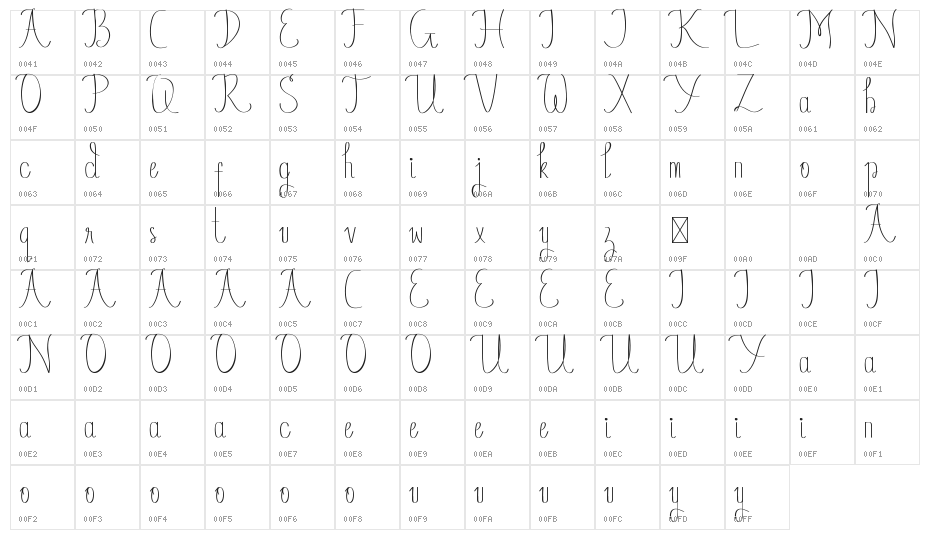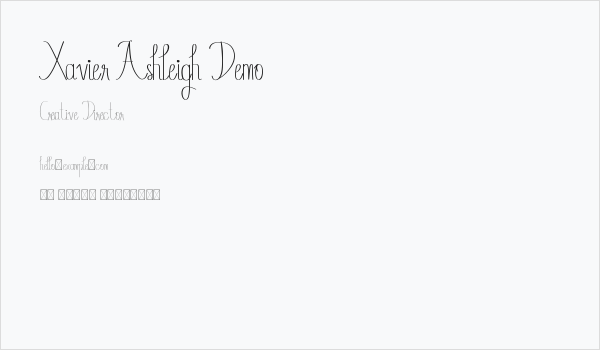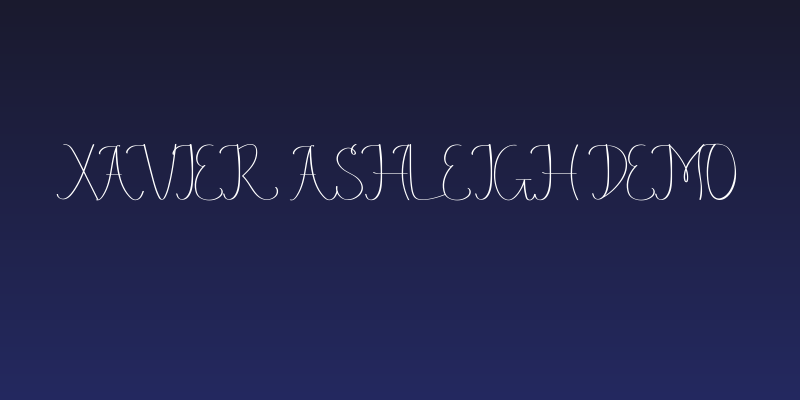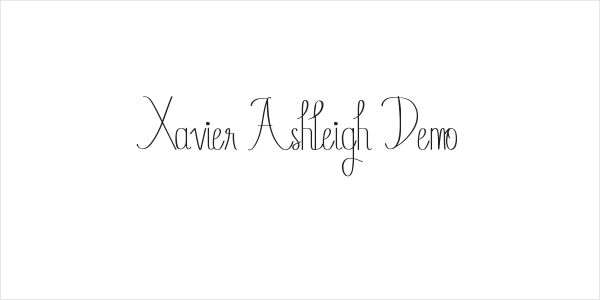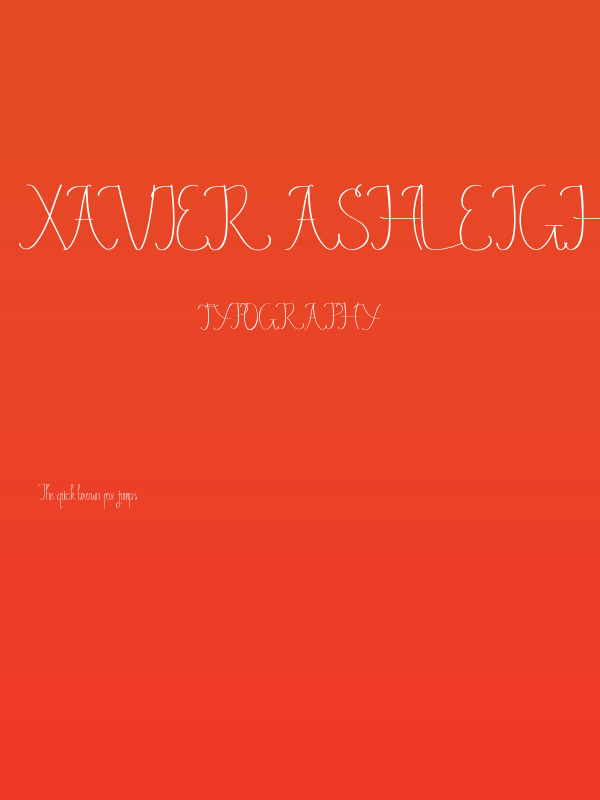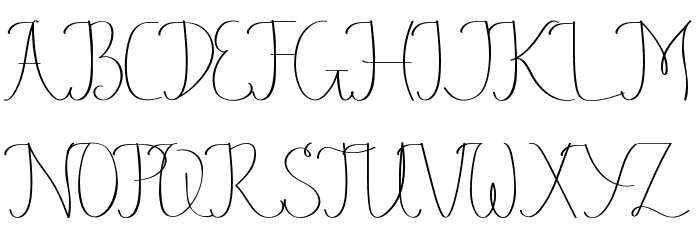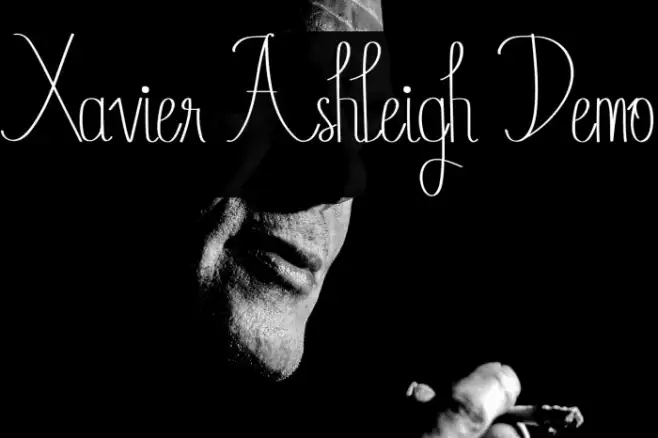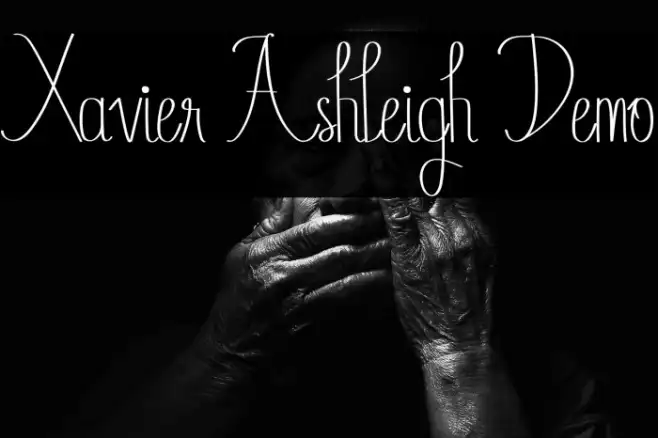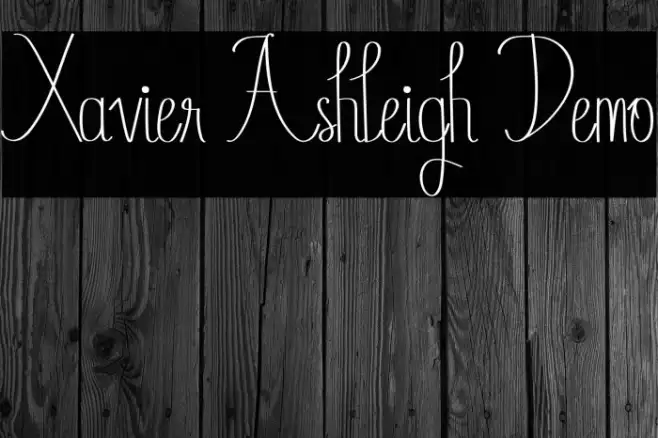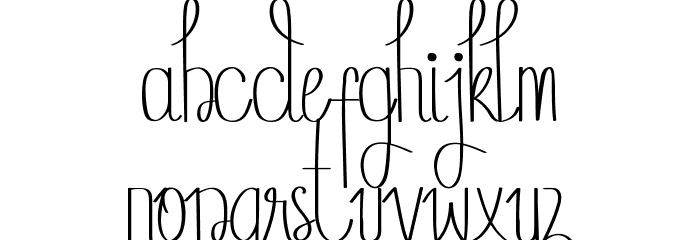
Xavier Ashleigh Demo Font
Xavier Ashleigh Demo Description
This font features an elegant and whimsical script style with tall, narrow characters. The uppercase letters are characterized by their elongated forms and flowing lines, creating a sense of movement and grace. The lowercase letters maintain this fluidity, with some characters featuring unique loops and swirls that add a decorative touch. The overall design is airy and light, with a playful yet sophisticated aesthetic. This font's distinctiveness lies in its ability to convey both elegance and creativity, making it suitable for a variety of design projects.
| Width | Condensed |
| Use Case | Headlines, Invitations, Decorative text |
| Proposed Projects | Ideal for wedding invitations, greeting cards, branding projects, and decorative headings. |